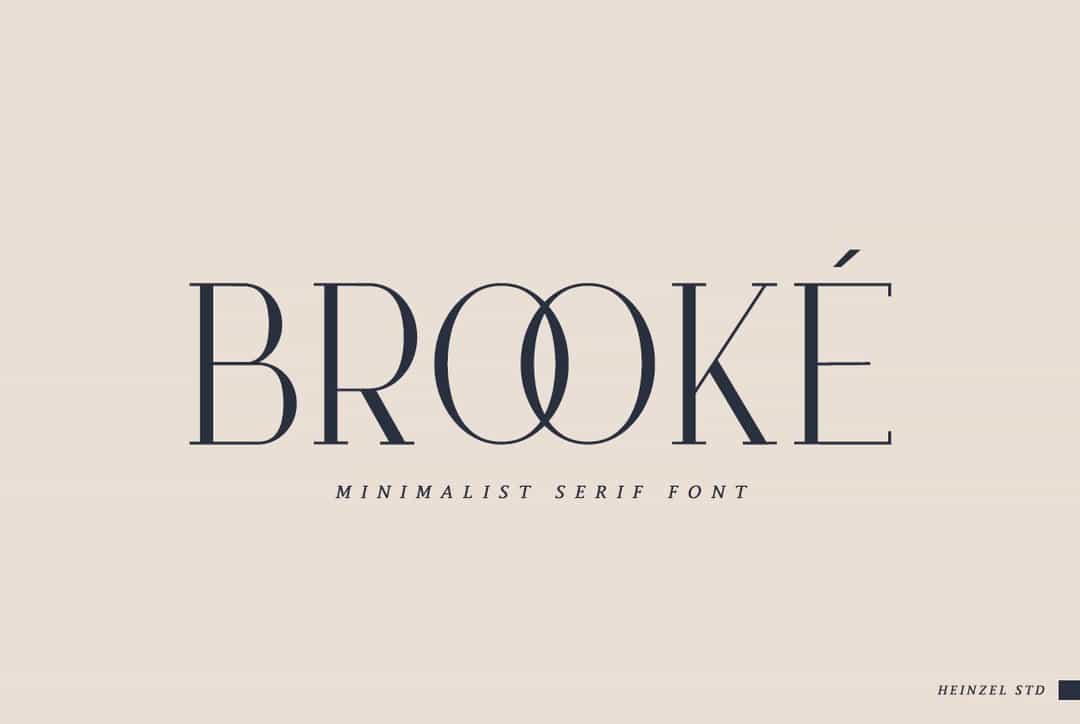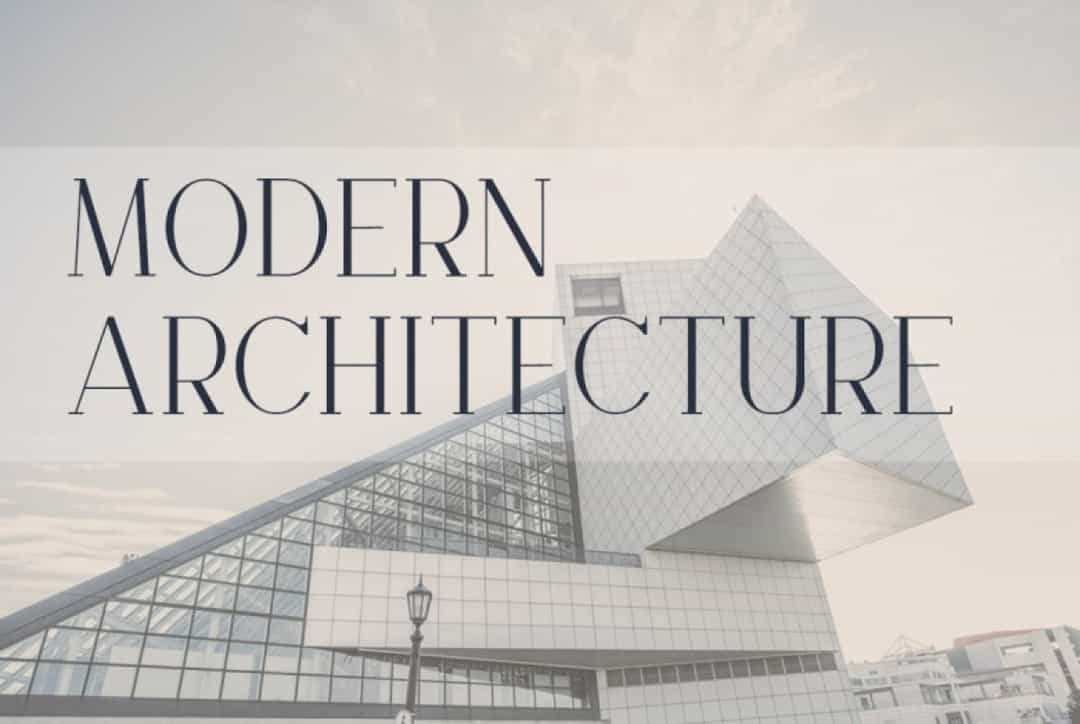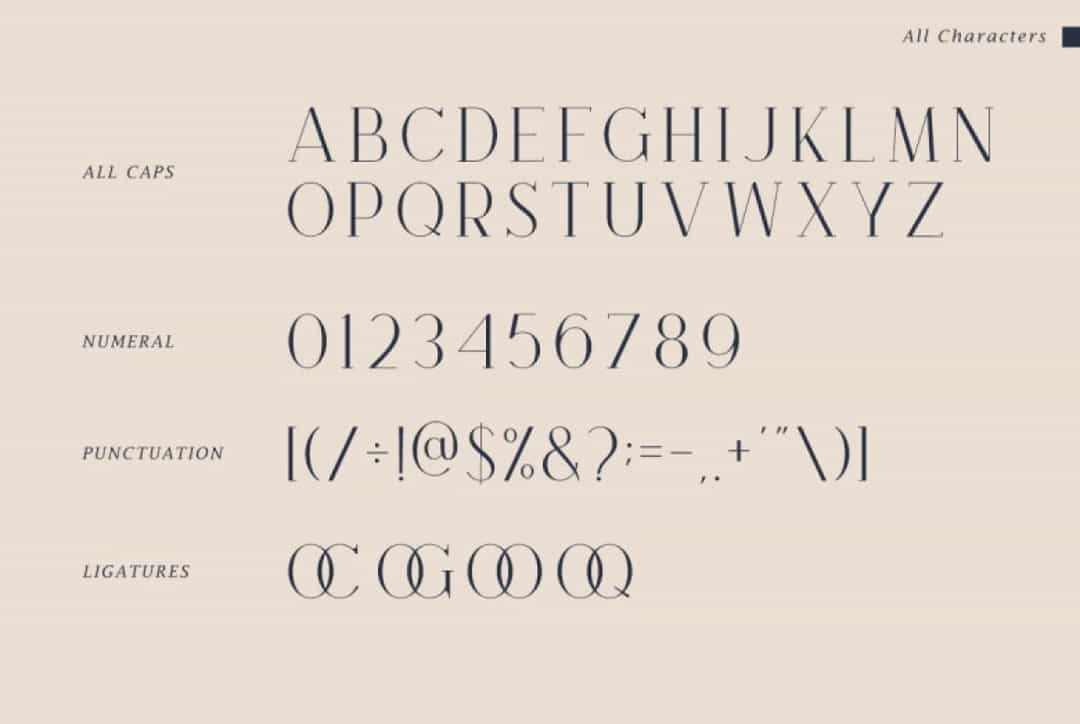
Brooke Font has a quite elegant and classical look about it. Heinzel Studio designed this modern serif font in the minimalistic style with a various selection of fonts that are easy to apply! This font is perfect for logos, prints collages and body text projects as well as many other projects.